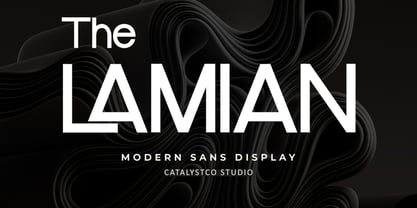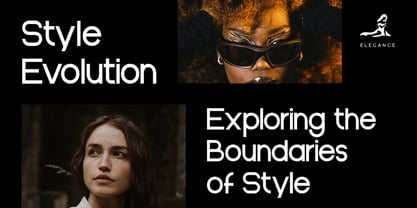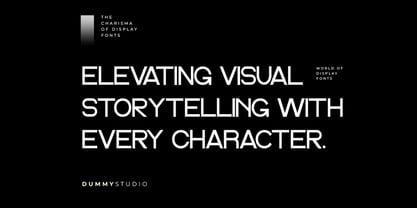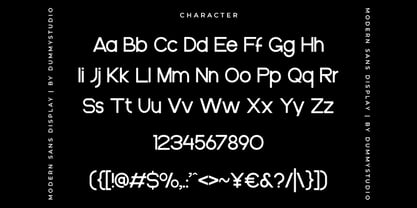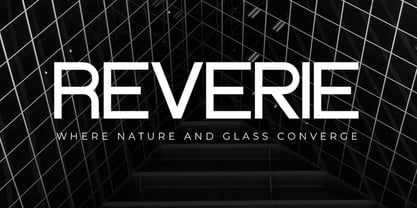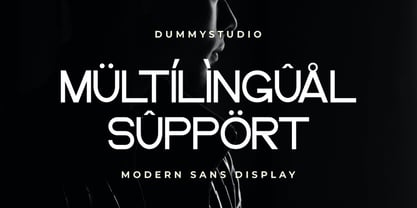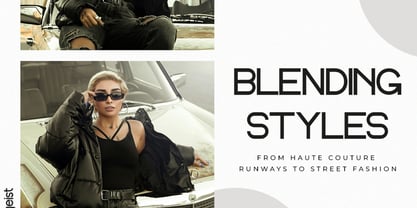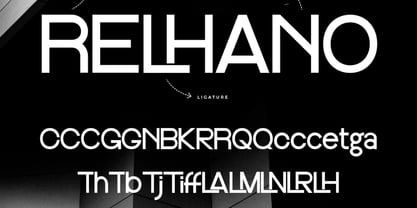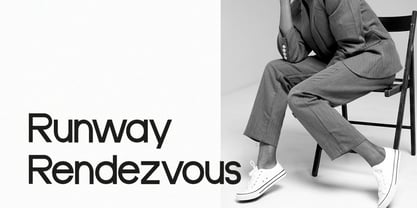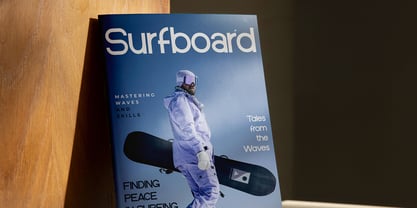
The Lamian
von Catalystco Std
The Lamian is a clean and elegant modern sans serif display font designed for premium branding, corporate identity, and contemporary layouts. It features balanced proportions, smooth curves, and strong readability for large titles and visual statements. This font is highly relevant for projects that require a clean, professional, and luxurious look. It is perfect for business branding, company profiles, editorial layouts, fashion posters, website hero sections, presentation titles, and social media marketing materials. This font is ideal for headlines, luxury branding, posters, presentations, website headers, social media covers, and minimalist design projects.
Foundry: Catalystco Std